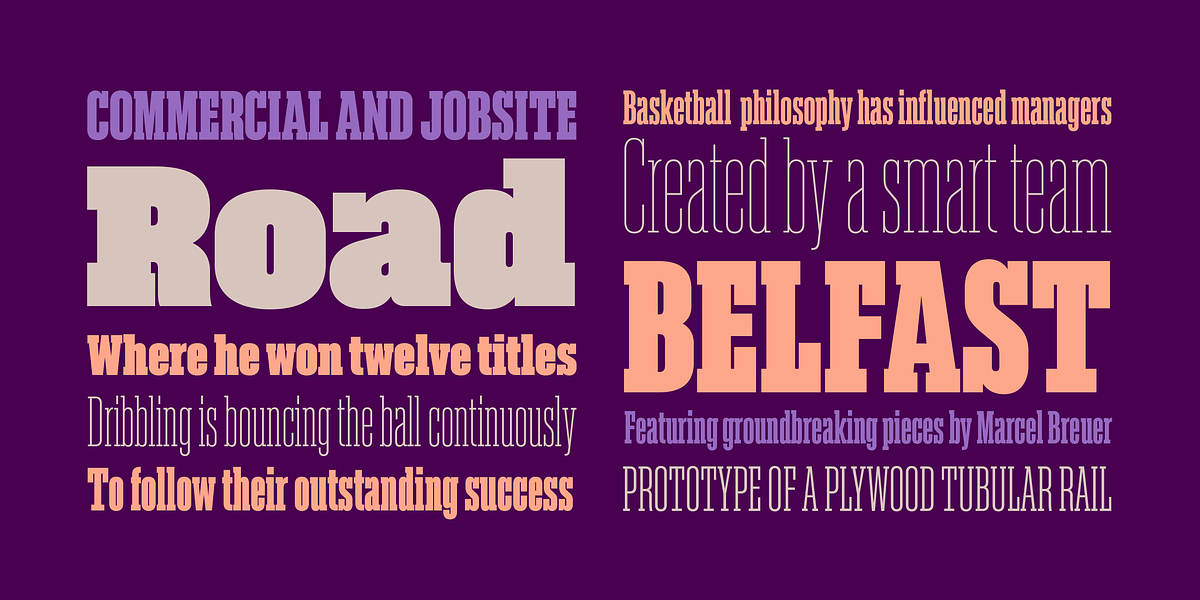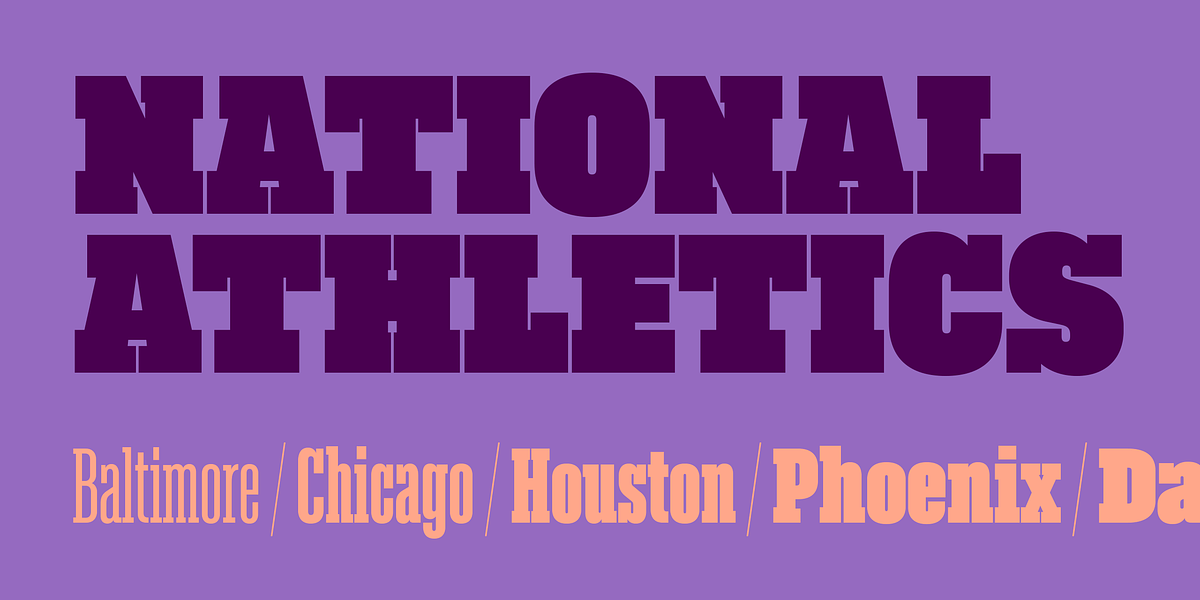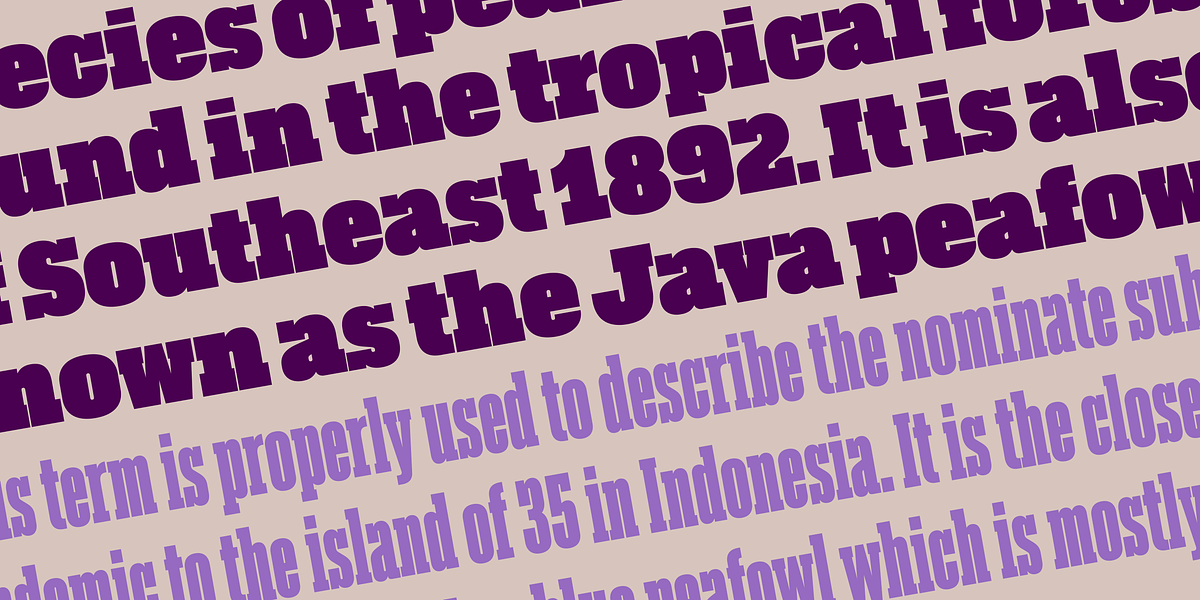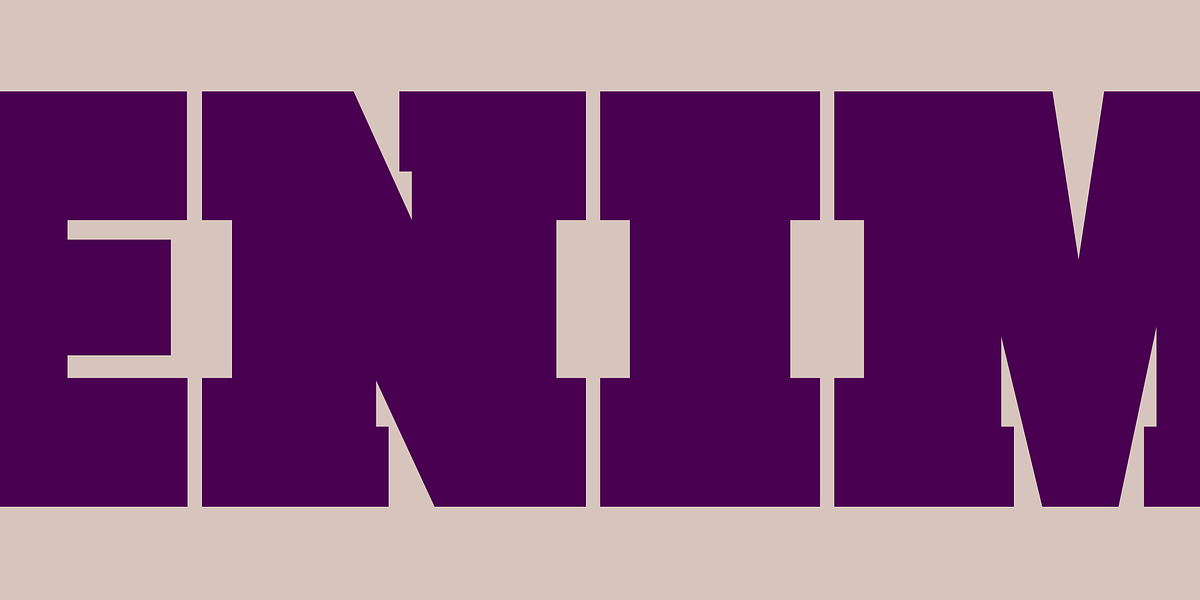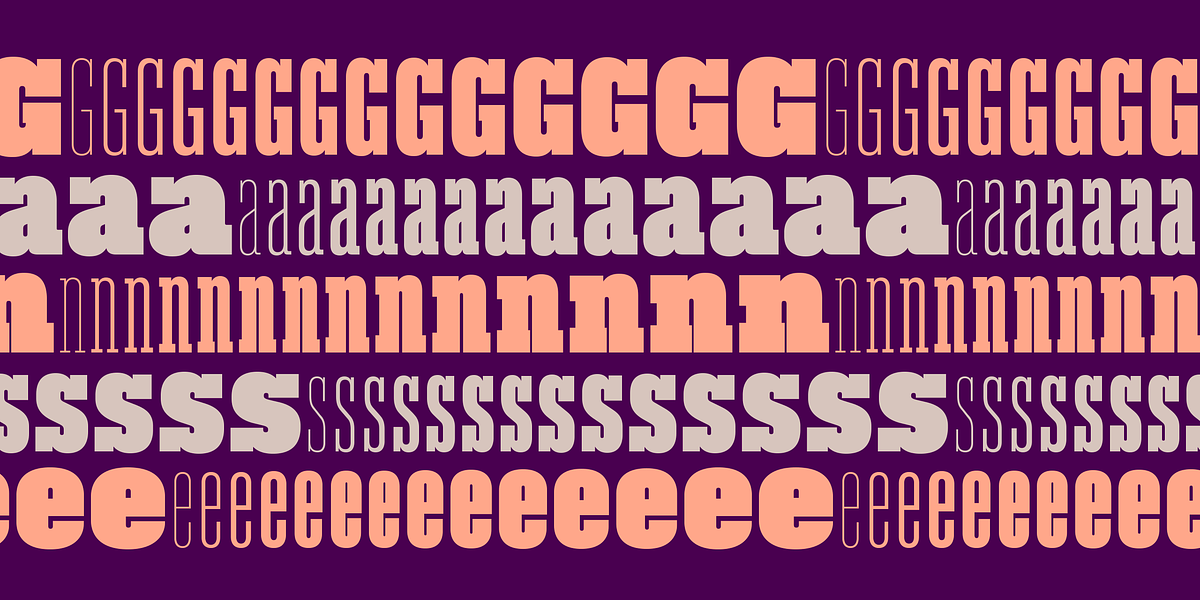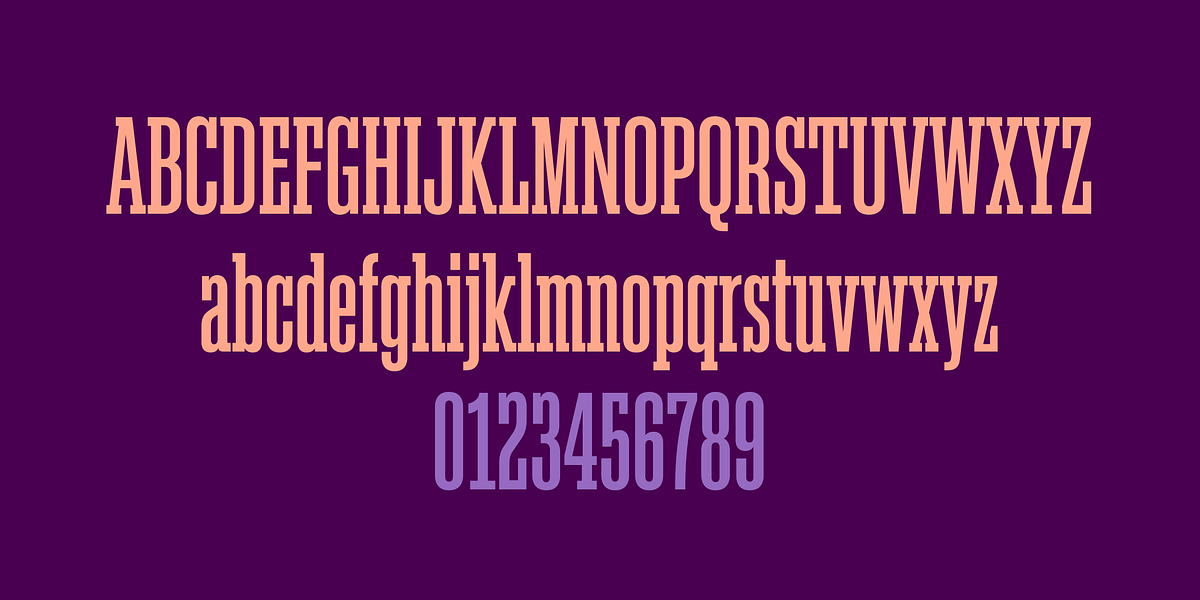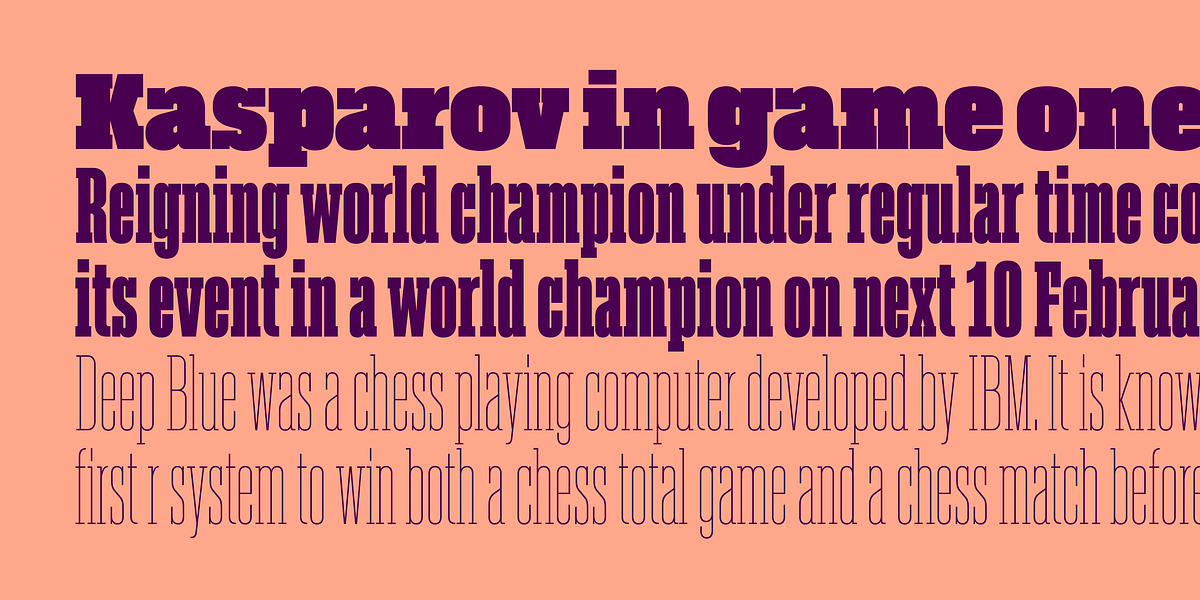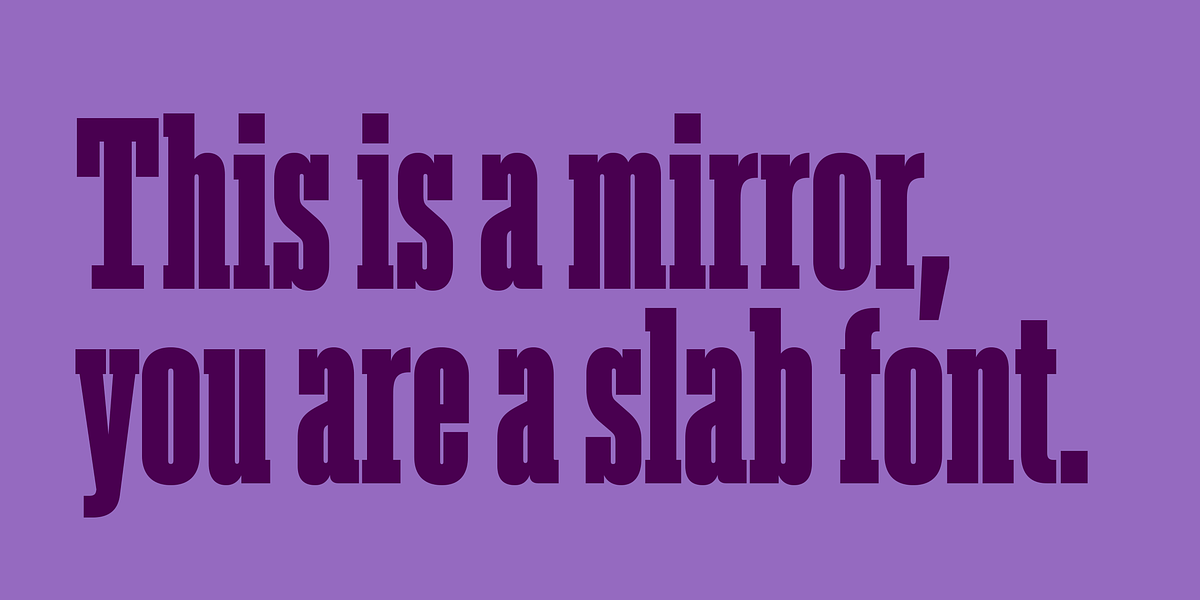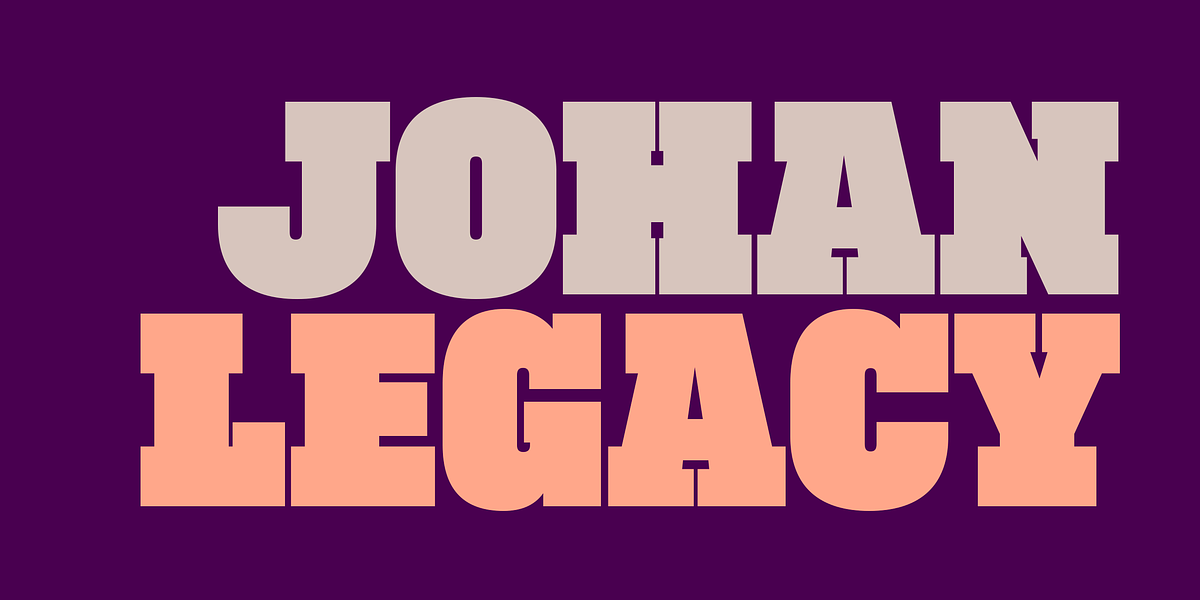
Akkordeon Slab
Akkordeon Slab is a bold and impactful display slab serif typeface designed for headlines and impactful text. It's part of the Akkordeon font family and known for its strong voice suitable for uses in sports, business, fashion, or any situation requiring attention-grabbing typography.